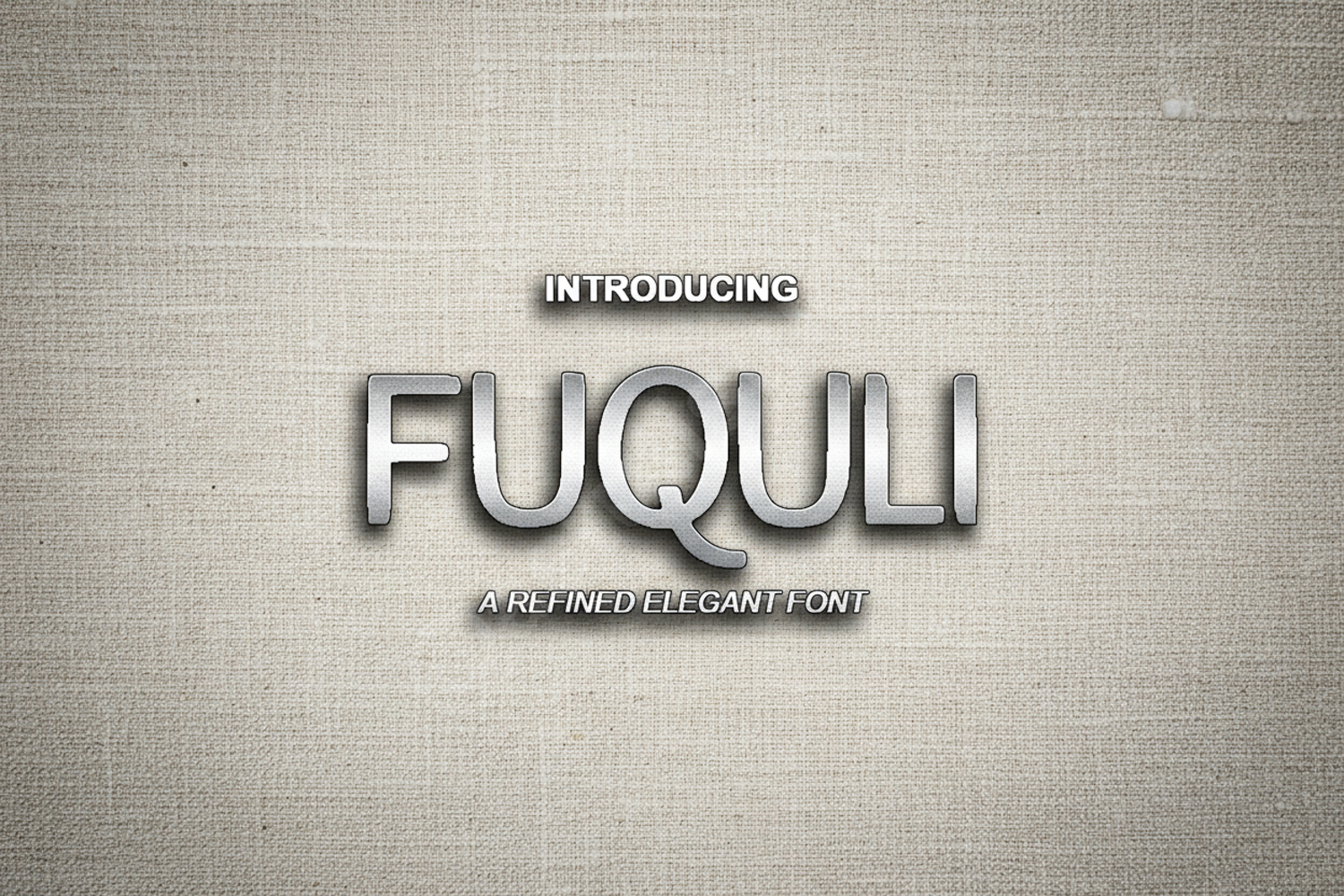
Fuquli - Modern Sophisticated Display Serif
Fuquli
Fuquli is a premium display serif font that masterfully balances contemporary flair with timeless sophistication. Meticulously crafted for high-end projects, this typeface features unique ligatures and clean lines that command attention while maintaining excellent readability. Whether you are building a luxury brand or designing a sleek editorial layout, Fuquli provides the versatile edge your portfolio needs.
- Complete character set including uppercase, lowercase, numbers, and punctuation
- Multilingual support for global accessibility
- Luxury Branding and Identity
- High-end Editorial and Magazine Layouts
- Wedding Stationery and Invitations
- Social Media Graphics and Quotes
- Modern Logo Design
- Website Headers and Hero Images